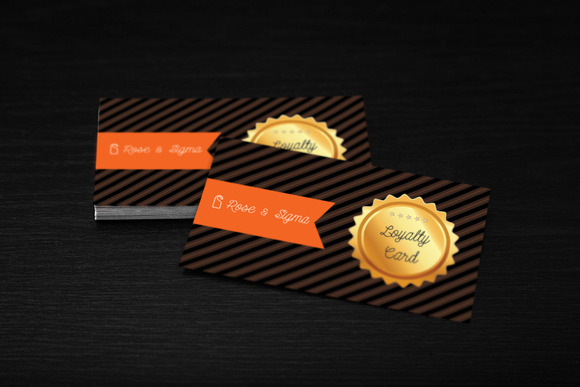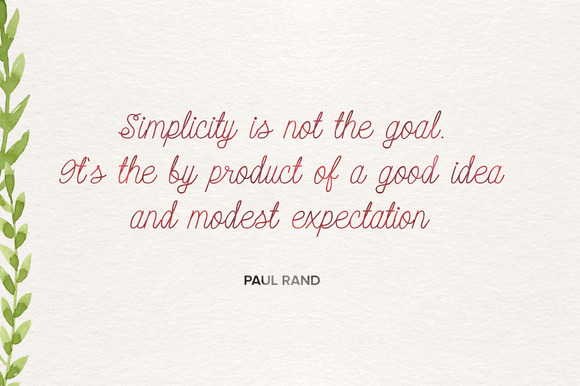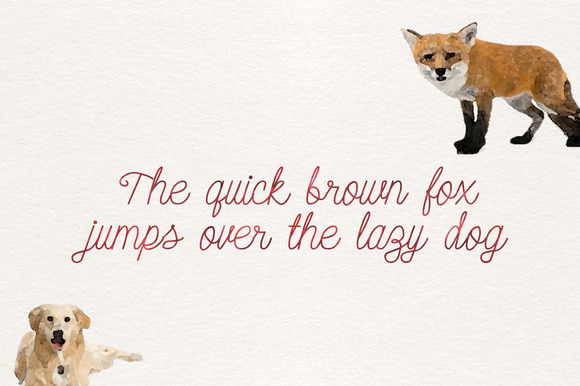
Silgoumy Font
Silgoumy is a cute, stylish and lovely handmade script font. Silgoumy comes with uppercase, lowercase, numerals and all punctuations.
You can use Silgoumy font in your designs to make it more awesome. You can use it for your invitations, labels, posters, comic, log sheet, letters and anything under the sun that involves typeface in it. Silgoumy fits all places and sync very well with your designs in no time. So why wait, grab this font.